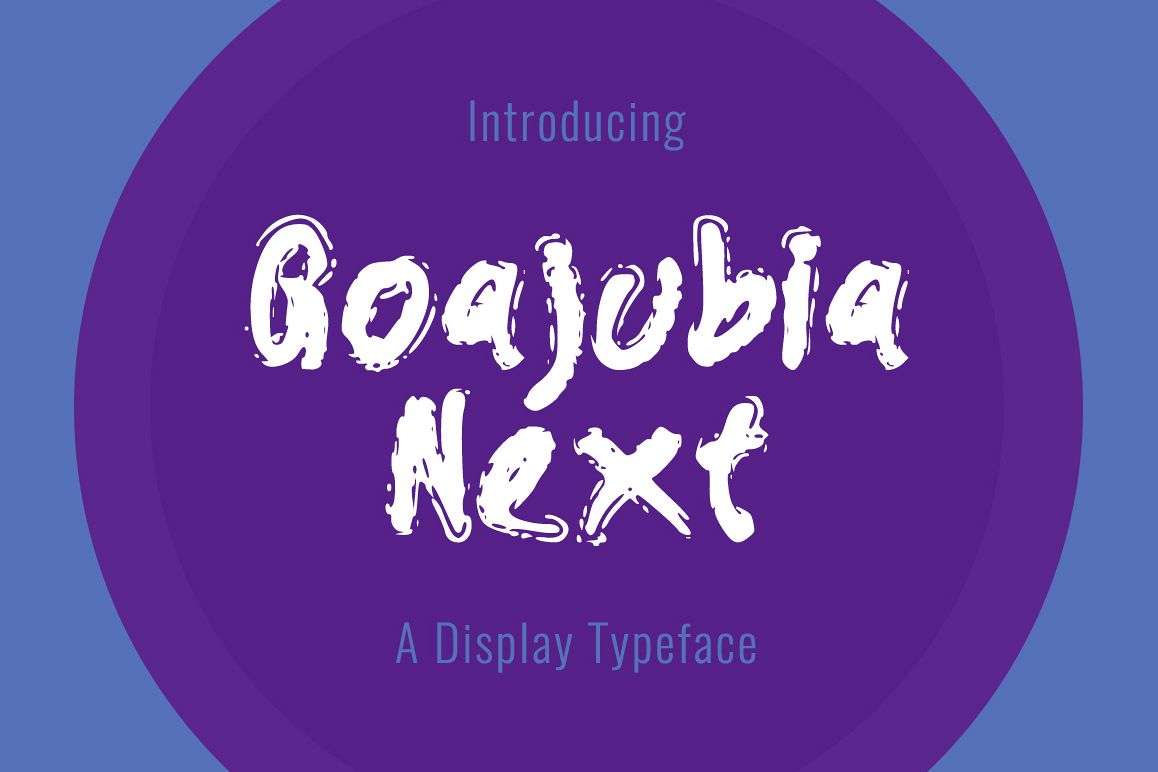
Goajubia Next Here!
Goajubia Next is a fresh & modern font.
Goajubia Next is perfectly suited to stationery, logos, t-shirt, paper, print design,
website header, photo frame, flyer, music cover, poster, image slider
and much more.